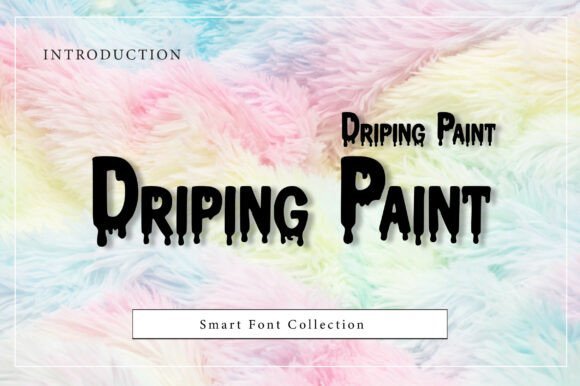
The Birth of a Bold New Design
As you sit in front of your computer, staring at a blank canvas, the cursor blinking away like a taunting heartbeat, you feel the creative itch. It’s that moment when anything seems possible, and the world is your playground. You’re about to unleash a new idea, and it needs the perfect font to match its raw energy.
That’s where the Driping Paint Font comes in – a game-changing display typeface that captures the essence of wet, running ink and thick street-art paint. This font is more than just a visual representation; it’s an experience that can elevate your designs to the next level. By incorporating the Driping Paint Font into your projects, you’ll be able to add a layer of chaos and creativity, making your message feel as much as it is read.
- Unique Characteristics: Mimics the appearance of dripping paint, creating a unique and artistic effect
Driping Paint Font Review
Overall, I’m quite pleased with the Driping Paint Font. It has a unique, hand-painted aesthetic that can add a nice touch to various design projects.
- The font’s imperfections give it a charming, organic feel.
- It’s perfect for adding a playful, whimsical touch to branding materials or digital art.
- The font’s bold strokes and fluid lines make it great for creating eye-catching headlines and titles.
- It’s highly customizable, allowing designers to adjust the font’s characteristics to suit their project’s specific needs.
- The font may be too busy or overwhelming for text-heavy projects, making it difficult to read.
- Some characters, such as the letter ‘q’, may require additional design work to make them legible.
- The font’s uniqueness can also make it less suitable for formal or professional projects.
Overall, the Driping Paint Font is a great addition to any designer’s toolkit, but it’s essential to use it judiciously and in the right context.
Use Driping Paint Font for creative and artistic designs, such as:
Remember to experiment with different font sizes, colors, and styles to achieve the desired visual effect.
Alternatives to “Driping Paint Font” for Designers
3. Splatter Font
Splatter Font is a font that features splatters of paint or ink, often in a random or organic pattern. It’s ideal for designs that require a playful or creative feel. Splatter Font is a more dynamic alternative to Driping Paint Font, as it offers a range of splatter effects that can be used to add visual interest to designs.